Fonts are known to give designs a voice. Well, Adobe’s latest update speaks volumes. The company has added 1,500 new typefaces to its Adobe Fonts collection—its biggest font expansion in five years—pushing the total number available to Creative Cloud subscribers past the 30,000 mark. The update doesn’t cost users anything extra, but it gives typography lovers much to chew on.
This expansion brings together a mix of classics and modern staples, including some of the most widely used typefaces in design history. Among the additions are Helvetica, Gotham, Avenir, Times New Roman, Arial, and Proxima Nova.
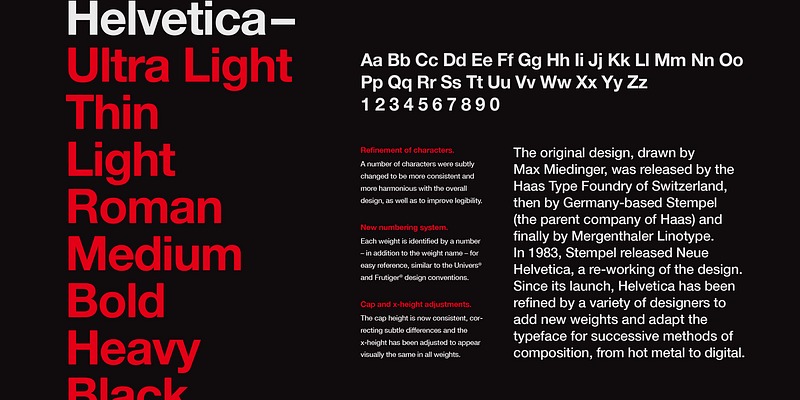
A large portion of this drop comes from a fresh collaboration with type heavyweight Monotype. The partnership brings over 750 Monotype fonts into Adobe’s ecosystem, including notable families like Helvetica, Gotham, Avenir, Benton Modern and FF DIN. Language support now includes Arabic, Hindi, and Japanese, reflecting a growing attention to global accessibility and multilingual design.
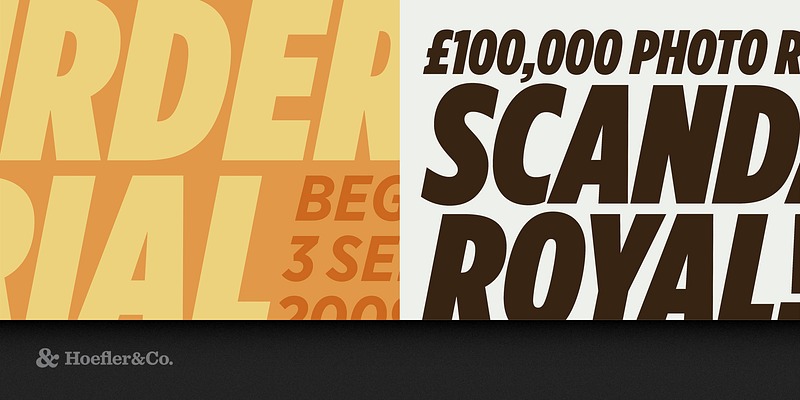
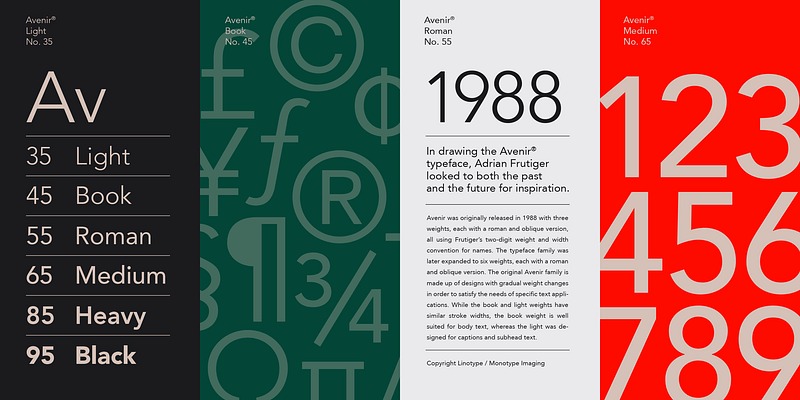
Microsoft fonts such as Times New Roman and Arial also make an appearance, bringing long-time favorites to modern creations.